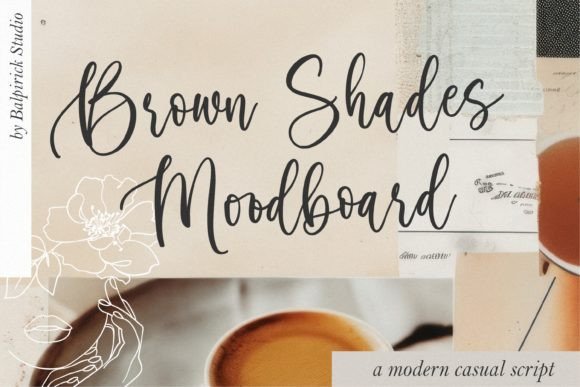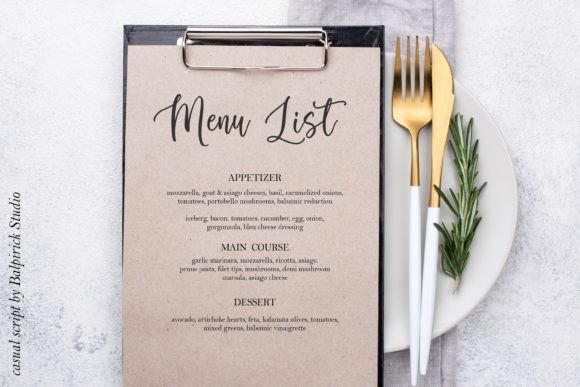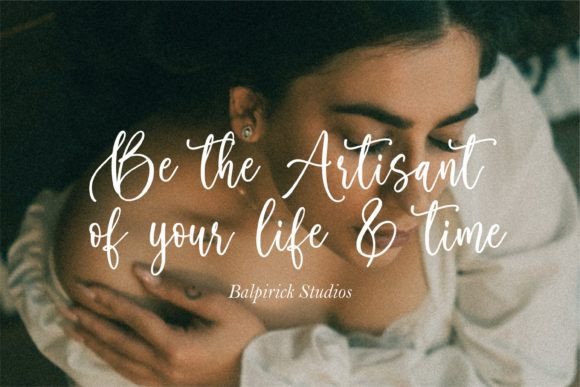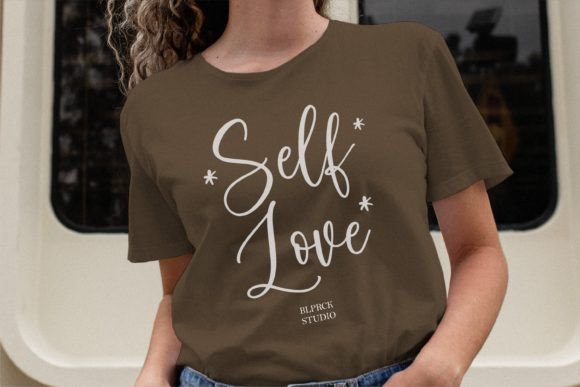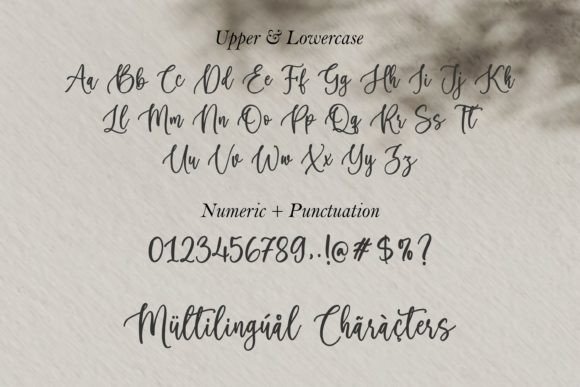
The Sweet Spot in Design: Unveiling the Honey Secrets Font
As a designer, have you ever found yourself in the midst of a creative block, struggling to bring your vision to life? You’re browsing through font collections, scrolling through inspiration boards, and suddenly, a spark of creativity strikes. You stumble upon a font that exudes warmth and personality, and you can’t help but feel a sense of excitement and possibility.
This is where the Honey Secrets Font comes in – a Casual Script Font that’s designed to add a personal touch to your design projects. With its natural, organic feel and unique character, it’s the perfect tool for crafting a visual identity that truly represents your brand or message. Whether you’re creating logos, branding materials, or invitations, the Honey Secrets Font is an invaluable asset for designers looking to make a lasting impression.
Honey Secrets Font Key Features
- Font Family: Honey Secrets Font is a unique, modern script font designed for various digital and print applications.
- Unique Characteristics: Honey Secrets Font features elegant, flowing lines, and intricate details, making it perfect for creating visually appealing and sophisticated designs.
Honey Secrets Font Review
I recently had the chance to work with the “Honey Secrets Font” and I must say, it’s a unique addition to any design project. ✨
- Unconventional yet stylish: The font’s combination of script and serif elements makes it perfect for creating eye-catching headings or titles.
- Legibility: Despite its complex design, the font is surprisingly easy to read, even at smaller sizes.
- Expressive feel: The Honey Secrets Font conveys a sense of warmth and friendliness, making it ideal for creative and emotive projects.
- Limited font sizes: The font’s readability suffers at larger sizes, making it less suitable for large-scale headings or titles.
- Lack of variety: The font’s unique design may become repetitive when used extensively, limiting its versatility.
- Not ideal for body text: The font’s script elements may make it difficult to read large blocks of text, making it better suited for headings and titles.
The Honey Secrets Font is a great addition to any designer’s toolkit, offering a unique and expressive style that’s perfect for creative projects. While it may have some limitations, its benefits far outweigh its drawbacks. With proper use, the Honey Secrets Font can add a touch of elegance and sophistication to any design.
Honey Secrets Font is ideal for:
- Social media graphics and flyers
- Custom logos and branding materials
- Typography-based art and design
- Professional-looking presentations and reports
- Marketing materials and advertising